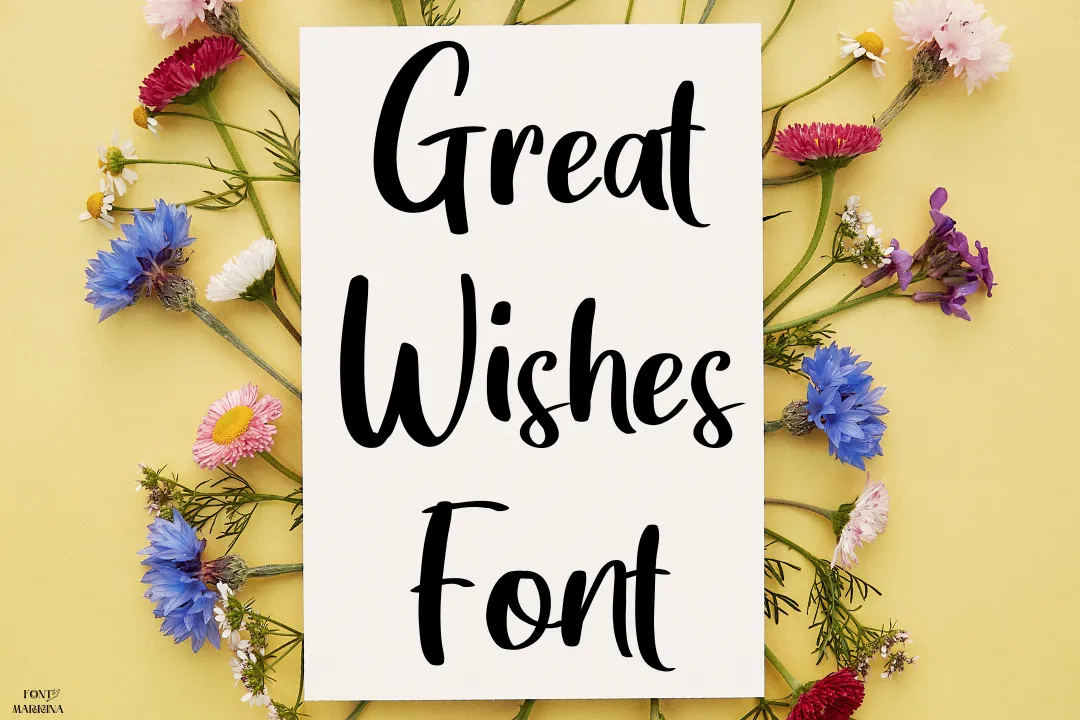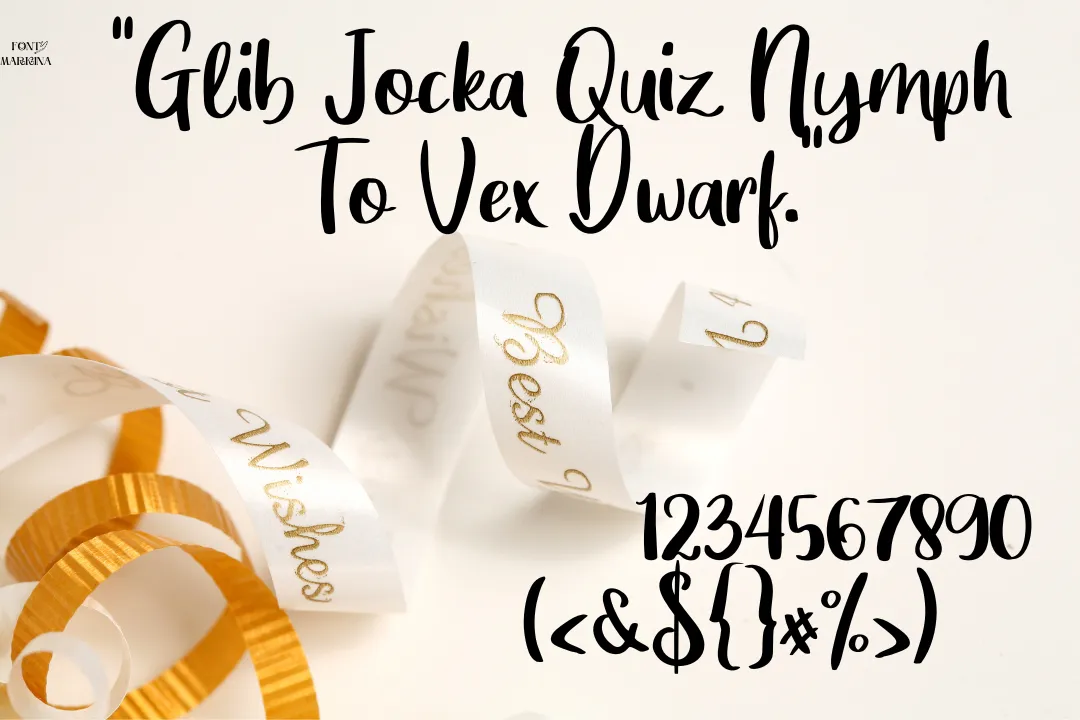
Great Wishes Font
The script Handwritten typeface family includes the Great Wishes font, which was created by renowned type designer Yumna Type. Both TTF and OTF file formats are offered for this font.
This typeface’s online generator tool will turn your plain textures into fashionable structures. It includes characters in various weights, including the capital, lowercase, numeric, and other unique alphabet sets.
You can design amazing creations and contrast them with the Pacifico typeface. You may make projects urgent and organized using this style’s copy-and-paste features.
Uses of Great Wishes Font
This typeface has a stylish and attractive texture that can be utilized for every project. The worth of this typography is extremely high, and nearly all of the designers who used this font for their projects were counted.
A similar font to the Great Wishes texture is the Pacifico font. This font will help you to make stunning projects because it has the elegant type of characters. You can also use this typeface for software, such as Adobe Photoshop, canvas, illustrator, CSS, and many others.
In addition, This typeface is suitable for making logo designs, posters, advertisements, social media posts, and many more projects.
What does the Great Wishes Font look like?
The great wishes texture looks like in the script handwritten typeface family. Its textures are stylish and attractive.
Is Great Wishes Font a normal font?
This typeface is a stylish and awesome texture look impression and is perfect for multiple projects. You can utilize it for CSS and Adobe Photoshop.
What type of font is Great Wishes Font?
The script Handwritten typeface family includes the Great Wishes font, which renowned type designer Yumna Type created. Both TTF and OTF file formats are offered for this font.